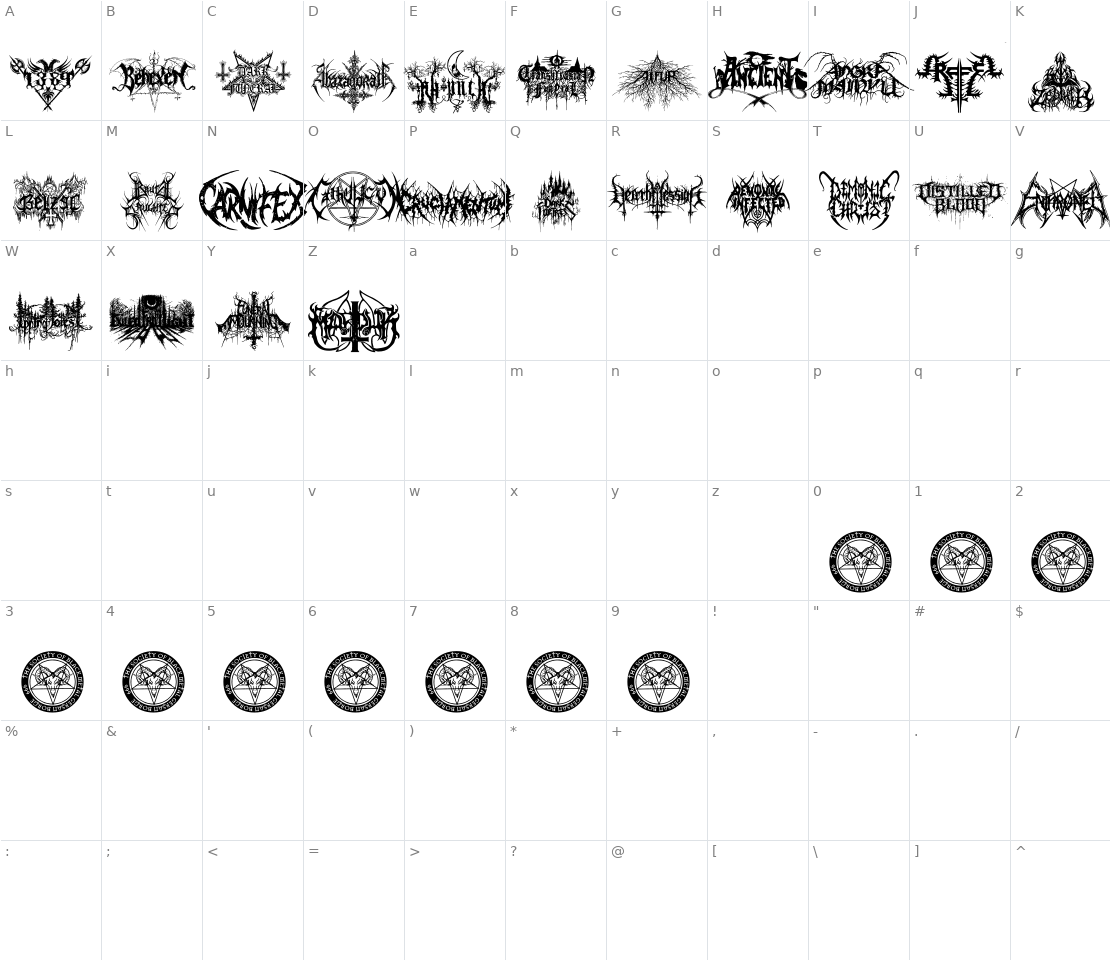
Black Metal G
by Gersan Borge A
Black Metal G is a heavily ornamented display face by Gersan Borge A that recreates the near-illegible, spiky logotype style synonymous with black metal bands. The letterforms are dense with thorny flourishes and jagged extensions, prioritizing atmosphere over readability. Built for logos, album art, and dark-themed graphics where looking menacing matters far more than being easy to read.